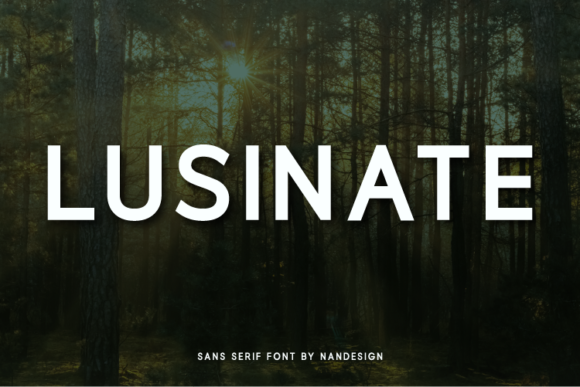
Introducing Lusinate Font - The Ultimate Sans Serif Font for Bold and Stylish Designs!
In a world awash with mediocre fonts, Lusinate emerges as a beacon of creativity, a font family that sets the standard for excellence in typography. Its sans serif design exudes a timeless elegance, embodying the essence of minimalism while captivating the senses with its undeniable charm.
Crafted by the visionary minds at Nan Design, Lusinate is a masterpiece tailored to elevate your designs to unparalleled heights. With its sleek lines and striking presence, this font will transform your words into visual symphonies, leaving an indelible mark on the hearts and minds of your audience.
Unleash your imagination with Lusinate, the font that knows no bounds. Its versatility shines through in a myriad of applications, from logos that command attention to headings that exude authority. Elevate your t-shirts with a touch of individuality, or add a dash of sophistication to your letterhead and signage. Let your labels and news designs stand out from the crowd, and captivate your readers with posters and badges that leave a lasting impression.
Lusinate is the perfect choice for those seeking a font that embodies modernity and sophistication. Its clean lines and crisp edges lend an air of professionalism to any project, while its subtle nuances hint at a playful spirit. Whether you're a seasoned designer or just starting out, Lusinate will effortlessly elevate your work to new levels of creativity.
Join the ranks of design enthusiasts who have discovered the transformative power of Lusinate. Embrace the future of typography and let your designs soar with the wind beneath their wings. Lusinate awaits you, ready to ignite your passion and unleash the boundless potential of your imagination.